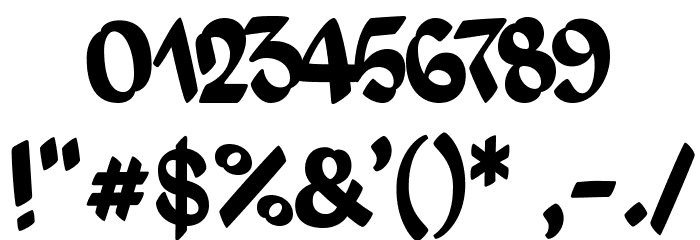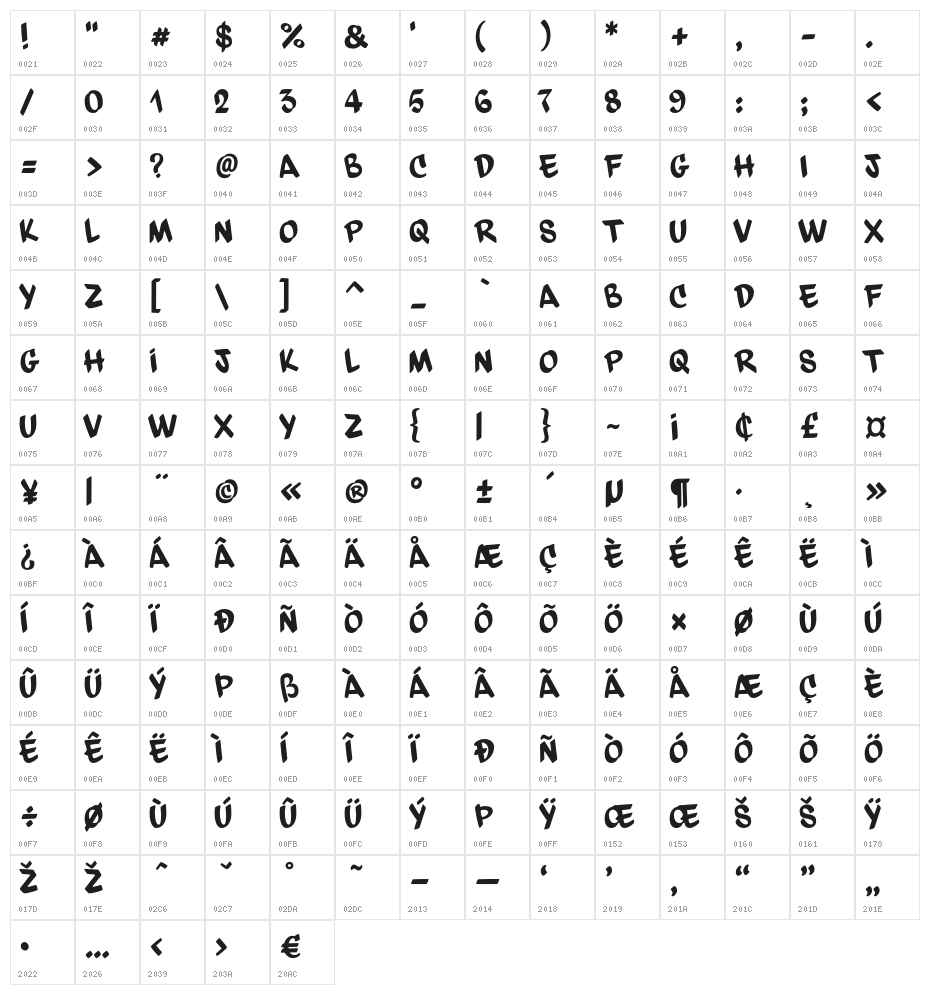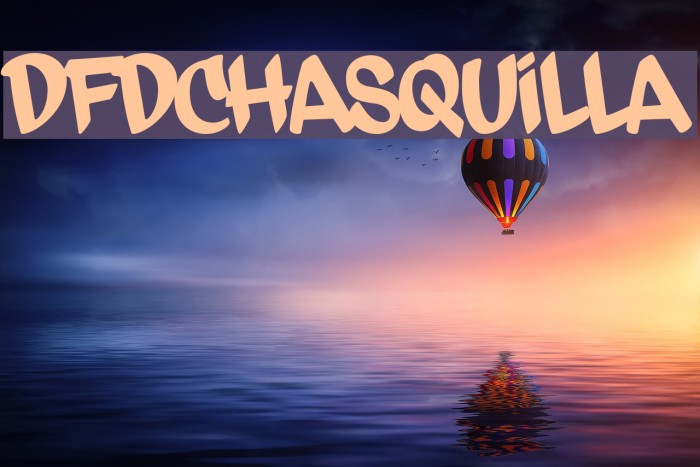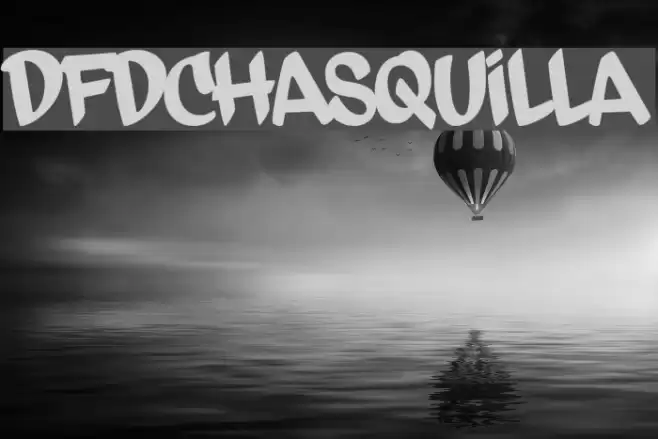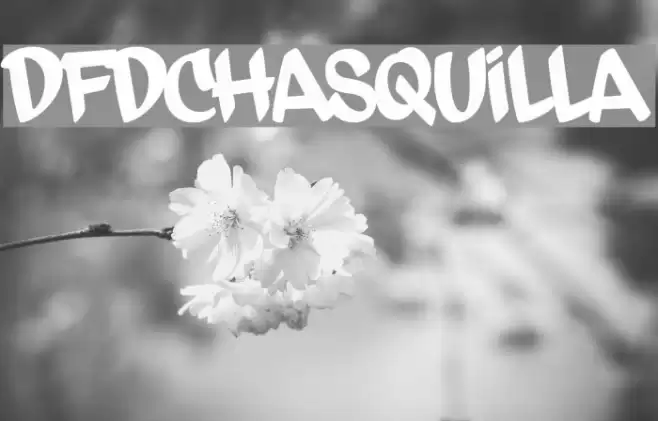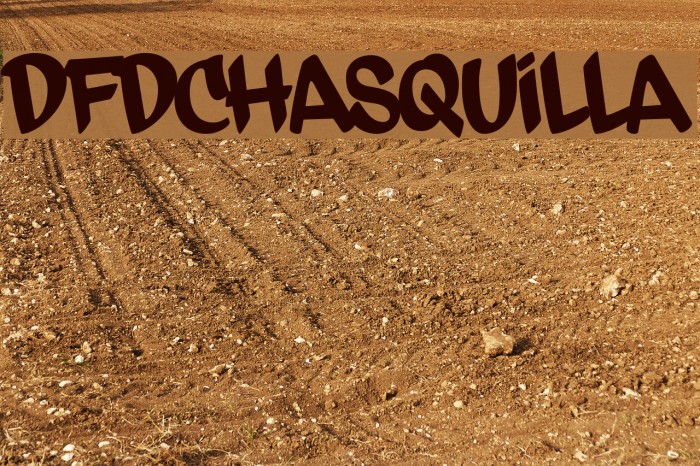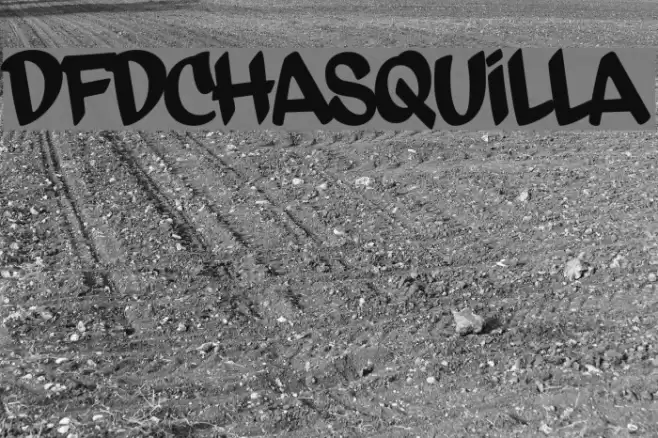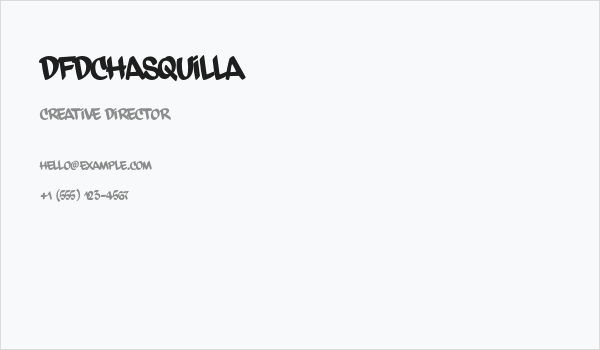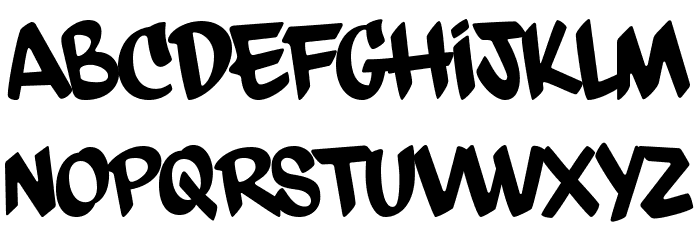
dfdChasquilla Font
dfdChasquilla Description
This font features a bold, energetic style with thick, rounded strokes that give it a playful and dynamic appearance. The characters are slightly slanted, adding to the sense of movement and liveliness. The uppercase and lowercase letters maintain a consistent style, with exaggerated curves and a hand-drawn feel. The numbers and special characters follow the same design principles, ensuring a cohesive look across all elements. The overall impression is one of fun and informality, making it suitable for creative and casual projects.
| Overall Style | Playful, Energetic |
| Proposed Projects | Ideal for comic books, children's books, posters, and playful branding. |